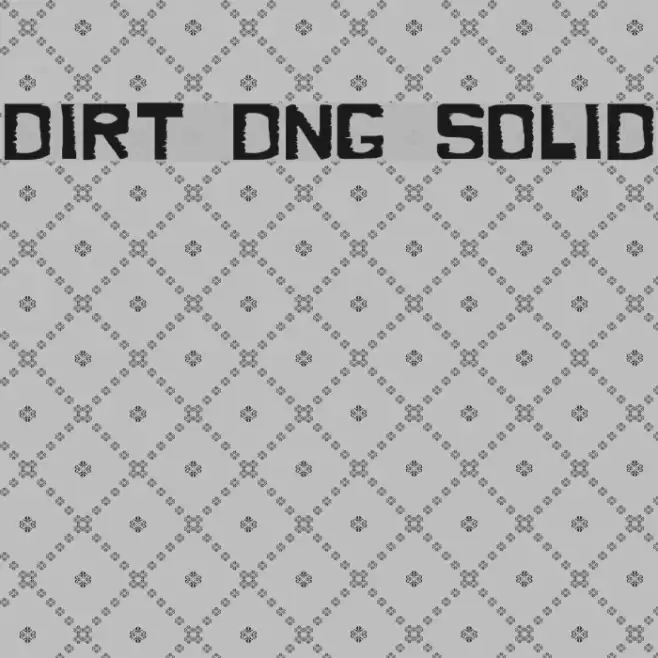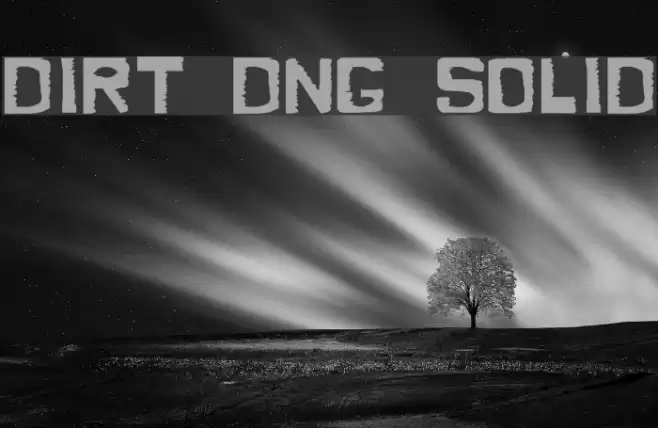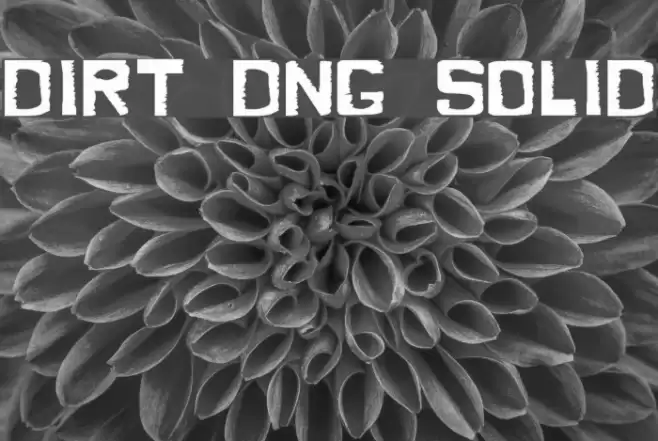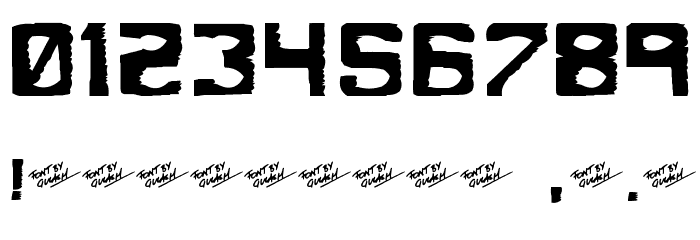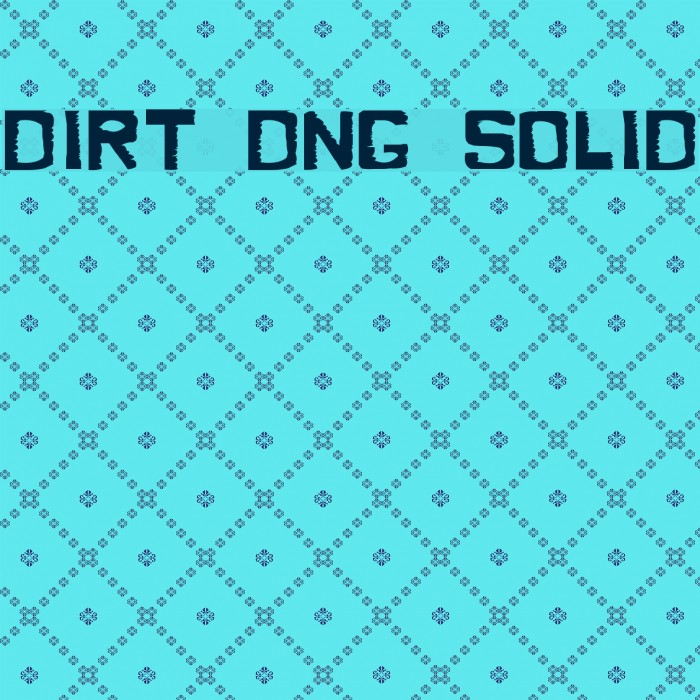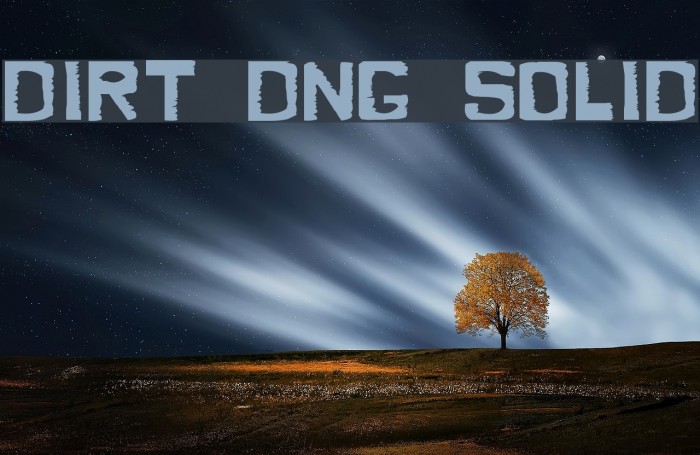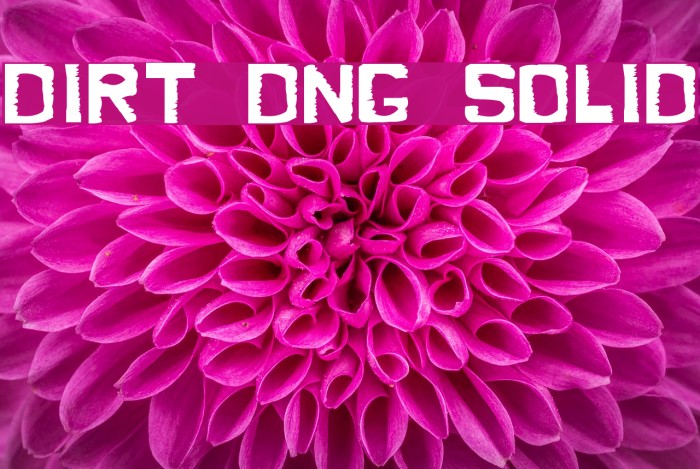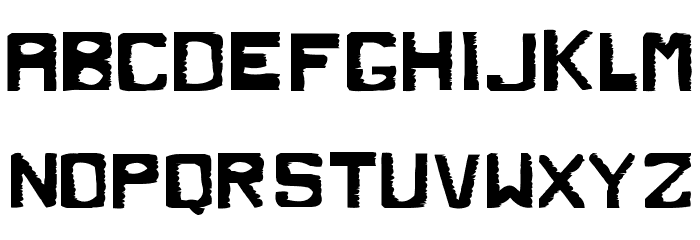
Dirty Dung Solid Font
Dirty Dung Solid Description
This font features a rugged, distressed style with a bold and impactful appearance. The characters are designed with rough edges and uneven strokes, giving them a gritty and textured look. The uppercase letters are uniform in height, while the numbers maintain a consistent style that complements the overall design. The font's unique appearance makes it stand out, with a strong presence that captures attention. Its boldness and irregularities suggest a sense of rebellion and nonconformity, making it suitable for projects that require a distinctive and edgy aesthetic.
A bold, distressed font with rugged, uneven strokes and a gritty appearance from Distorted Eroded fonts.